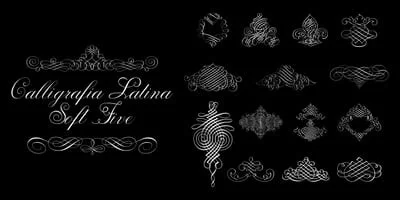
Calligraphia Latina Soft Font
Calligraphia Latina Soft Font is an exquisite choice for projects that demand the timeless elegance of classic calligraphy, combined with a modern, softer touch. It's perfectly suited for formal invitations, luxury branding, historical document recreation, sophisticated editorial design, and any application where you want to evoke a sense of refined artistry, tradition, and delicate grace. Imagine it adorning a bespoke wedding invitation, adding an air of understated luxury to a high-end product's packaging, or giving a distinctive, handcrafted feel to a historical society's commemorative materials. Its flowing lines, subtle variations, and gentle curves ensure your message is conveyed with both profound beauty and undeniable sophistication.
What makes Calligraphia Latina Soft Font so exciting is its remarkable ability to blend the natural, flowing beauty of historical calligraphic scripts with a contemporary softness that makes it more approachable and readable. It captures the essence of meticulous hand-lettering, providing a visual richness that elevates it beyond standard typefaces. This font isn't just about conveying text; it’s about infusing your projects with a sense of refined taste, artistic heritage, and bespoke appeal. It transforms words into visual art, making every piece feel unique, personal, and utterly charming.
The Calligraphia Latina Soft Font family typically offers variations that enhance its artistic versatility, often including a standard "Regular" weight that showcases its beautiful script and potentially stylistic alternates, swashes, or ligatures for extensive customization. These features allow for creating truly unique typographic compositions, ensuring that the Calligraphia Latina Soft Font can be the cornerstone of a truly unique and powerfully thematic visual identity, helping your designs stand out with an undeniable sense of character and profound elegance.